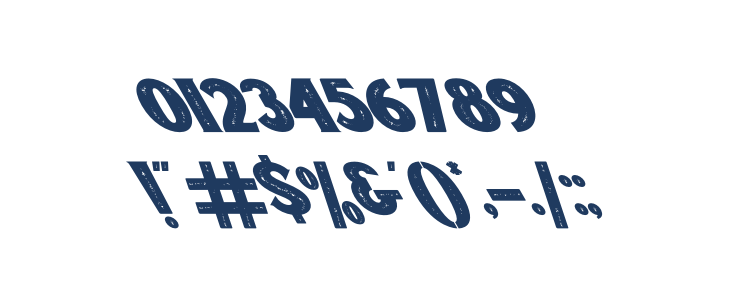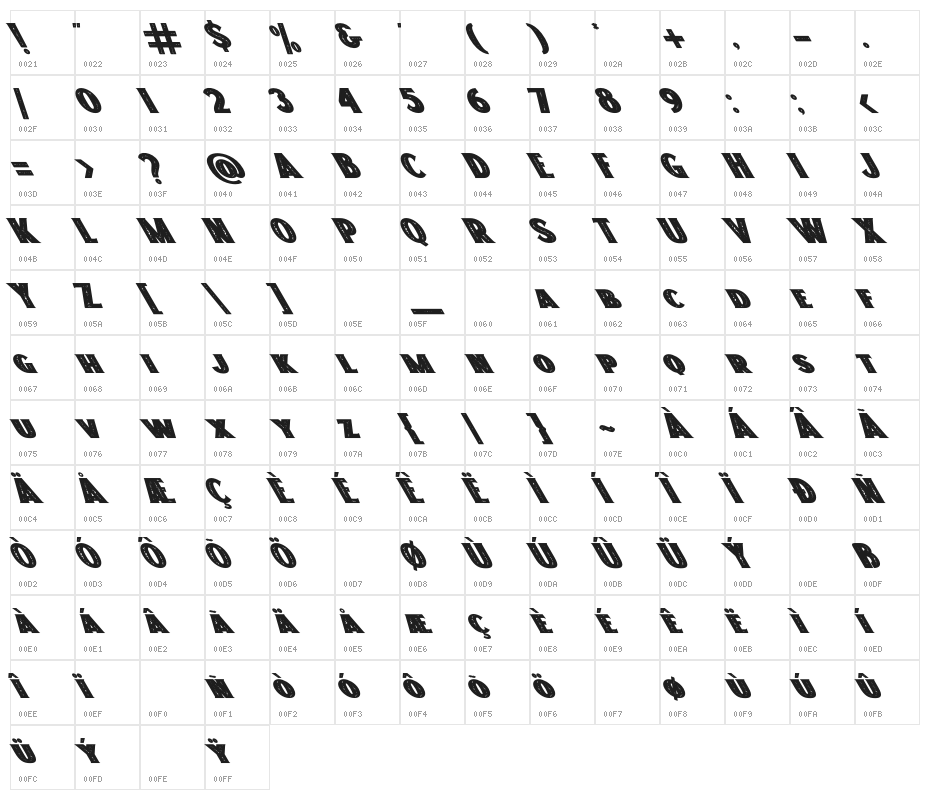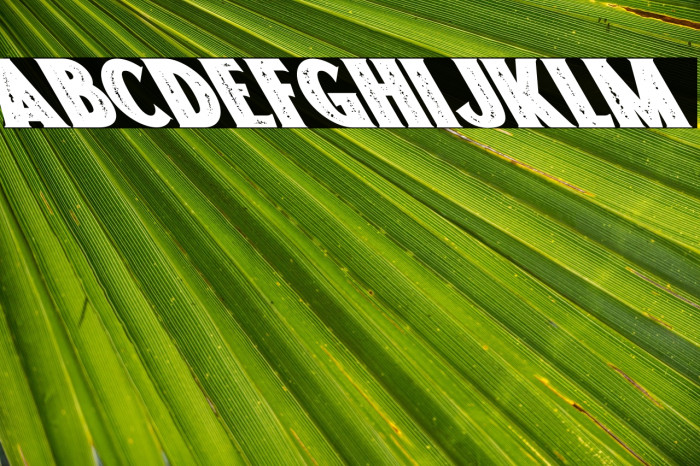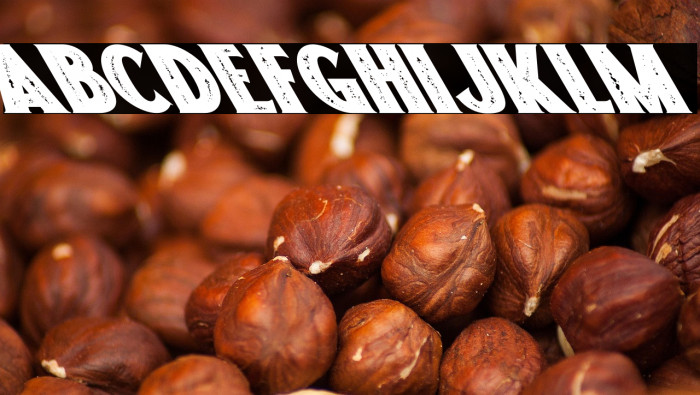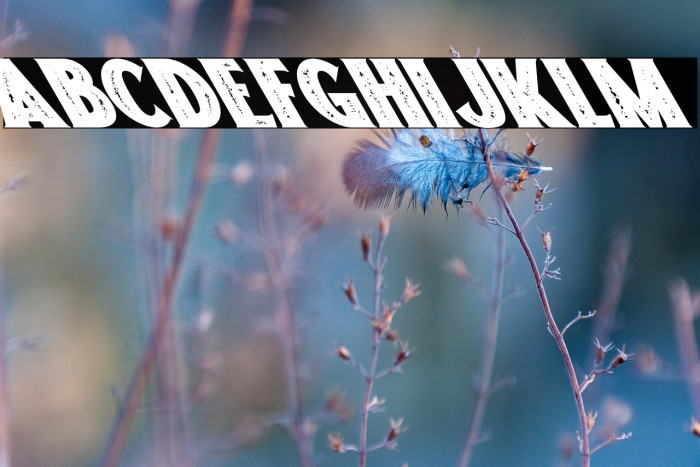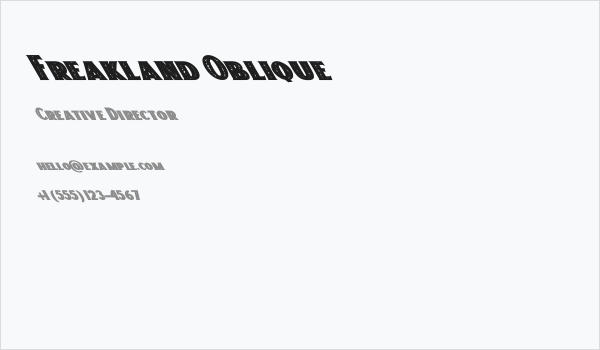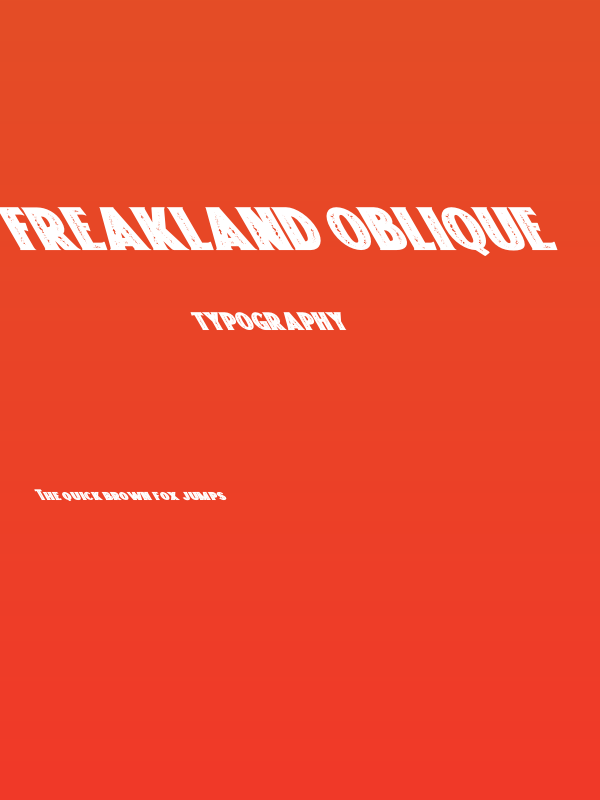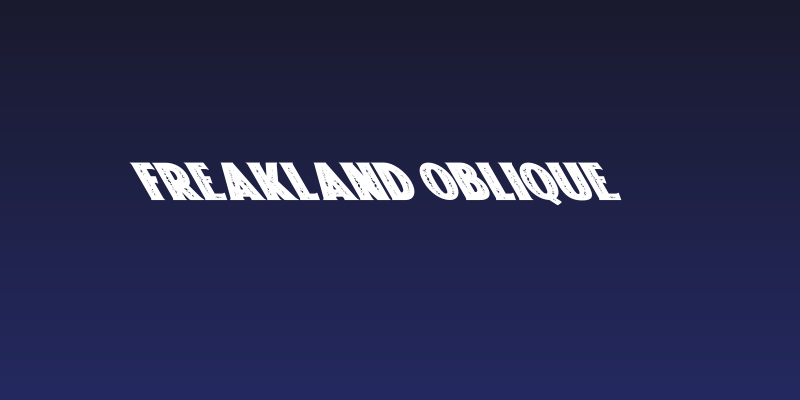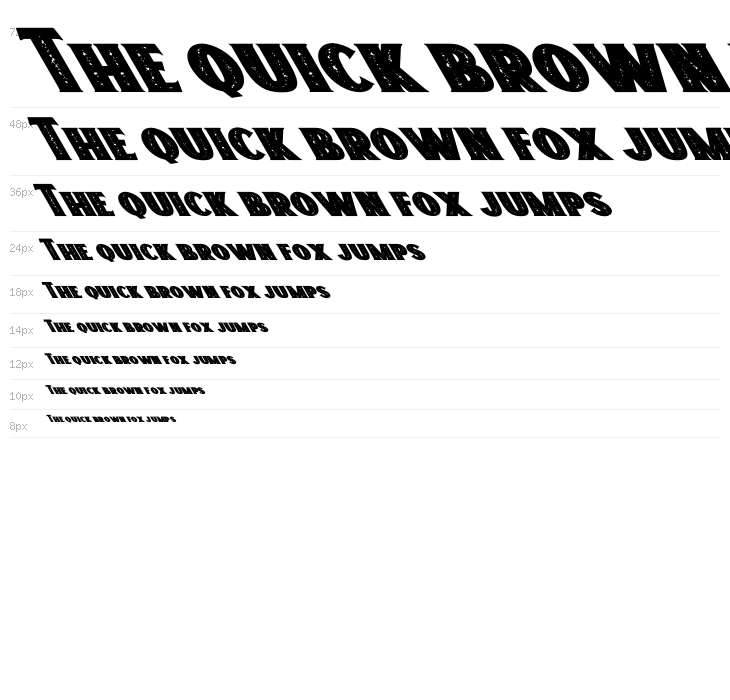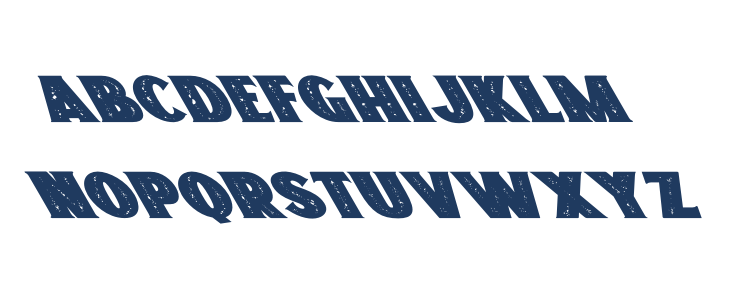
Freakland Oblique Font
Freakland Oblique Description
This font features a bold and dynamic style with a distressed texture that gives it a rugged, worn appearance. The characters are slanted, adding a sense of motion and energy. The uppercase and lowercase letters maintain a consistent weight, contributing to a cohesive look. The numbers and special characters are designed with the same boldness and texture, ensuring uniformity across all elements. The font's unique style makes it stand out, ideal for projects that require a strong visual impact.
| Proposed Projects | Ideal for posters, album covers, branding, and any design needing a bold, edgy look. |